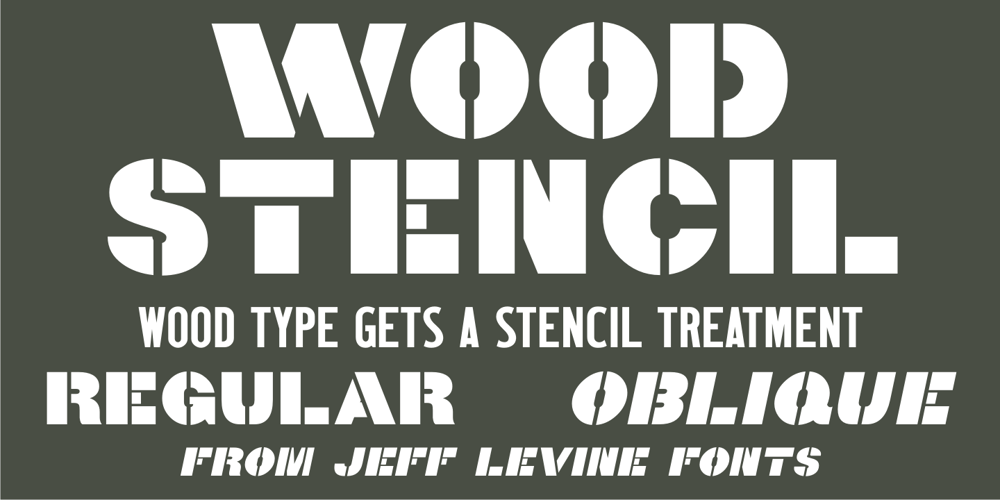
Wood Stencil
Wood Stencil font
Wood Stencil Font Family was designed by Jeff Levine and published by Jeff Levine. Wood Stencil contains 2 styles and family package options. Giving a stencil treatment to a classic wood type sans serif grotesk design, Wood Stencil JNL is available in both regular and oblique versions.